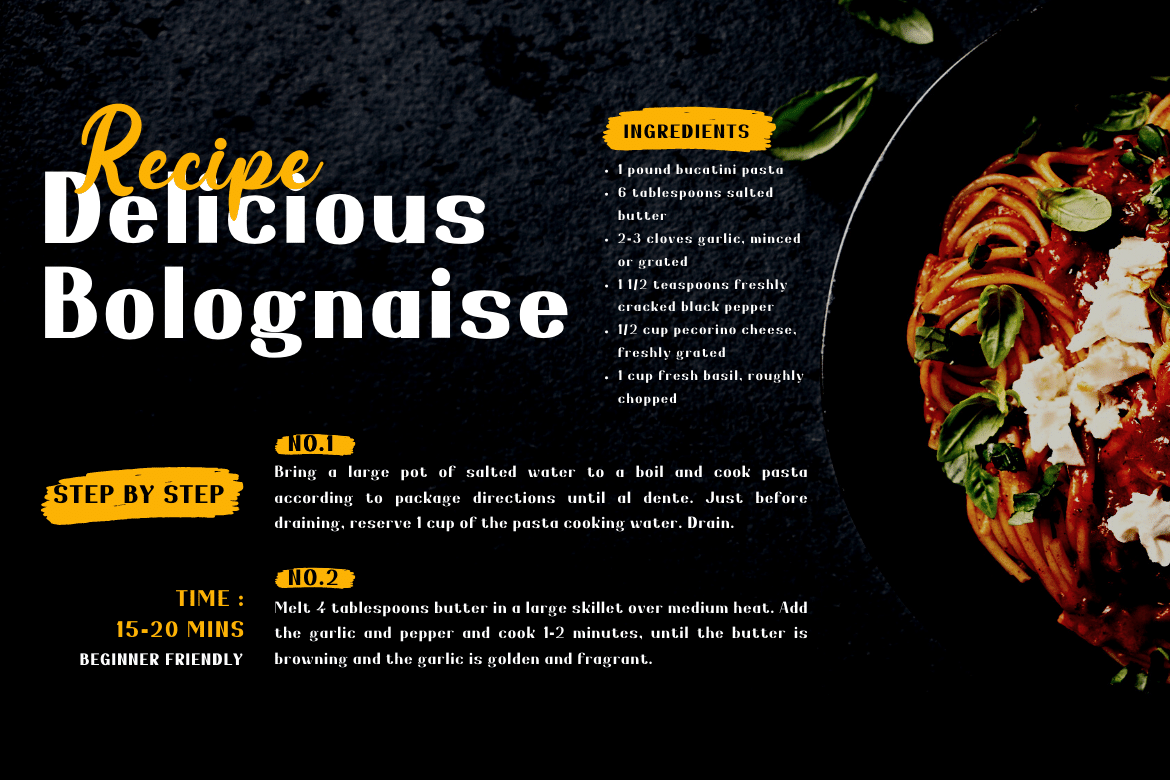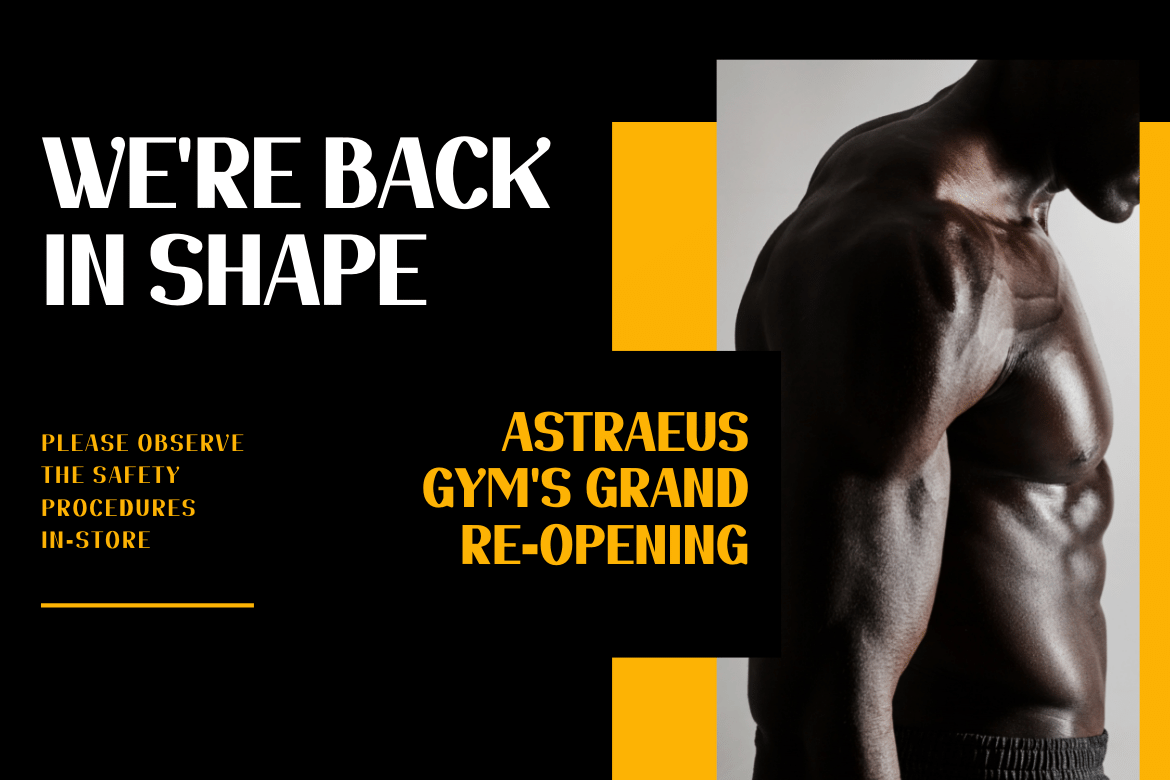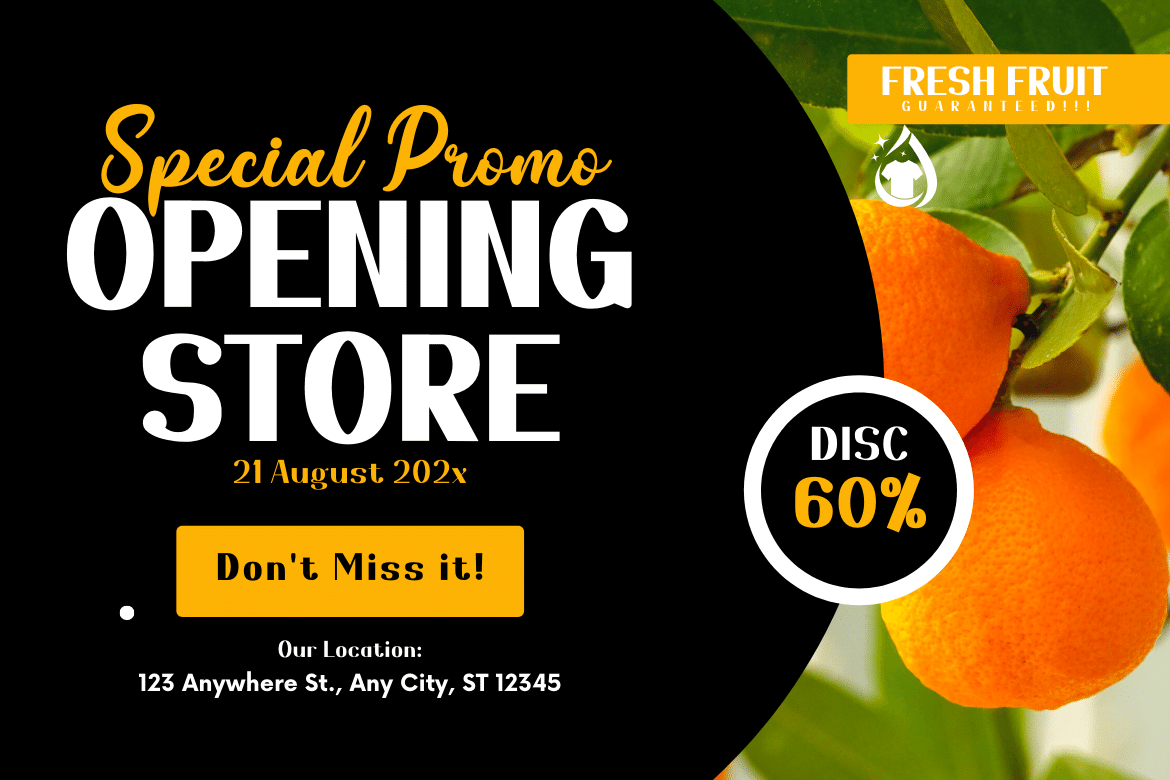
Gediya Sans Serif Font
This is a san serif font family with a distinctive and appealing shape suitable for headlines and writing. This typeface is stunning in every way, making it ideal for any application that needs to wow. Gediya is an excellent solution for making a flyer, banner, or just some new text for your project. Begin utilizing this typeface in your wonderful project.
of course, your various design projects will be perfect and extraordinary if you use this font because this font is equipped with a font family, both for titles and subtitles and sentence text, start using our fonts for your extraordinary projects.